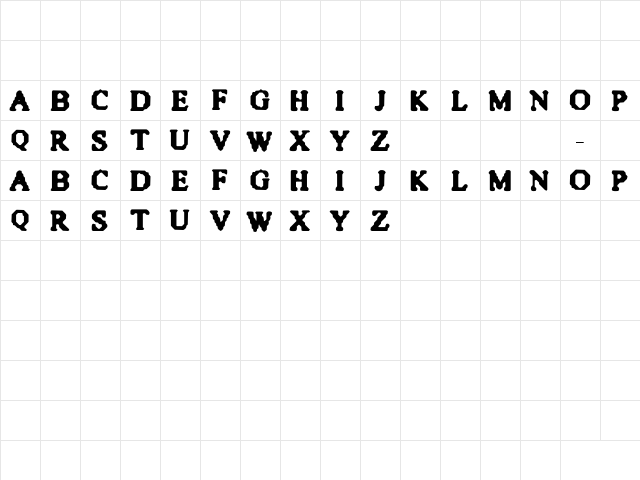
Quite Blunt Regular
Design Context for Quite Blunt Typeface
Quite Blunt takes a measured approach to typography — its balanced proportions and neutral character make it a reliable workhorse for both digital and print work.